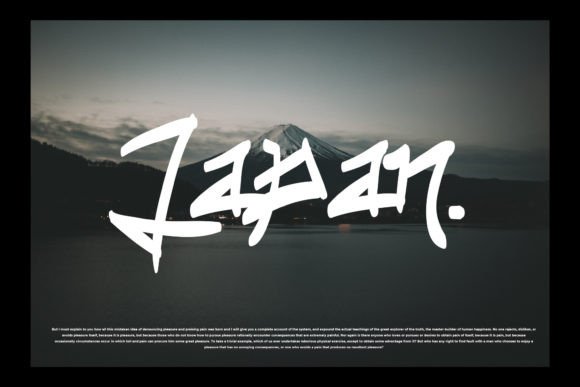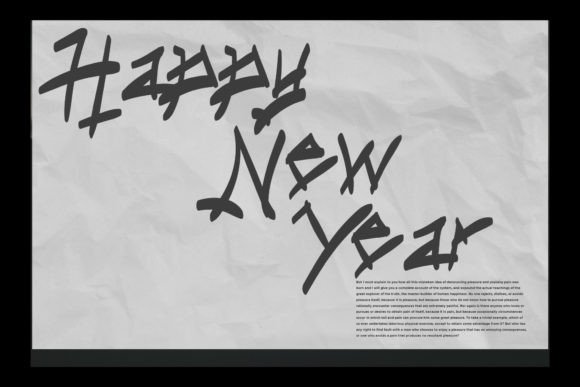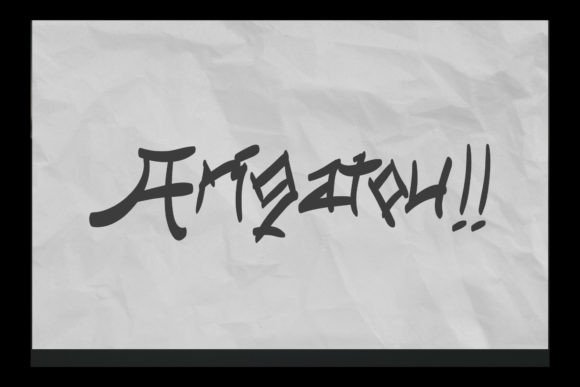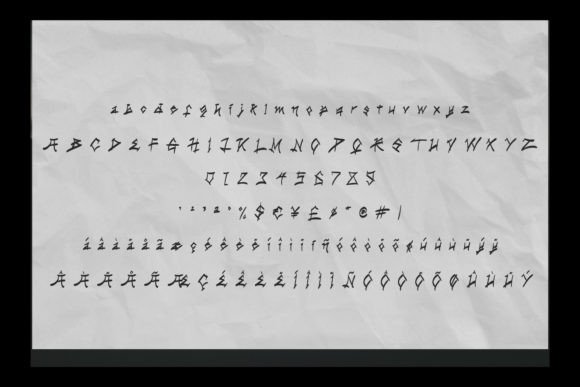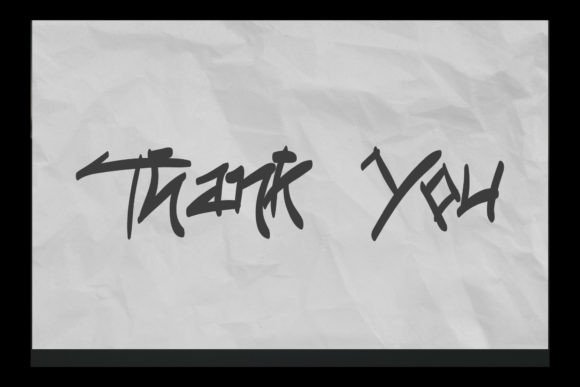
Introduction to Shutoku Font
Have you ever been working on a creative project, and you’re stuck on finding the perfect font to give it that extra oomph? I know I have. It’s like the missing piece of a puzzle, and once you find it, everything falls into place. That’s exactly what happened when I stumbled upon the Shutoku Font.
This stylish display font gives the impression of a brush stroke, making it perfect for designers who want to add a touch of elegance to their work. Whether you’re designing for social media, clothing, or events, the Shutoku Font is a valuable resource that can elevate your design to the next level.
Not only is it a high-quality font, but it’s also free to download, making it an excellent addition to any designer’s toolkit. With its transparent background, you can easily incorporate it into your designs without any hassle. In this article, we’ll dive deeper into the world of Shutoku Font and explore its many uses and benefits.
Key Features of Shutoku Font
- High-quality, elegant font perfect for creative projects requiring a touch of sophistication.
- Transparent background option, ideal for use on images with complex backgrounds or for creating stunning overlays.
- Unique, hand-drawn design aesthetic, setting it apart from other fonts in its class and adding a personal touch to any creative project.
Honest Review: Shutoku Font
I recently had the chance to work with the Shutoku Font, and I must say it’s been a game-changer for my creative projects. This font is a high-quality design resource that offers a lot of flexibility.
One of the standout features of the Shutoku Font is its versatility. It’s perfect for creating eye-catching headlines and titles, and the transparent background makes it easy to layer with other design elements.
- ⚠️ Limited font sizes and styles, which can make it difficult to customize for certain projects
- ⚠️ Not suitable for projects that require a lot of bold or italic text
Overall, I’m really impressed with the Shutoku Font. It’s a great addition to any designer’s toolkit, and I highly recommend it for any creative project that requires a high-quality font.
The Shutoku Font is commonly used in creative projects that require a high-quality, elegant font. It’s particularly useful for designs with a transparent background, such as logos, business cards, and brochures. You can also use it in presentations, documents, and other written content where a touch of sophistication is needed.